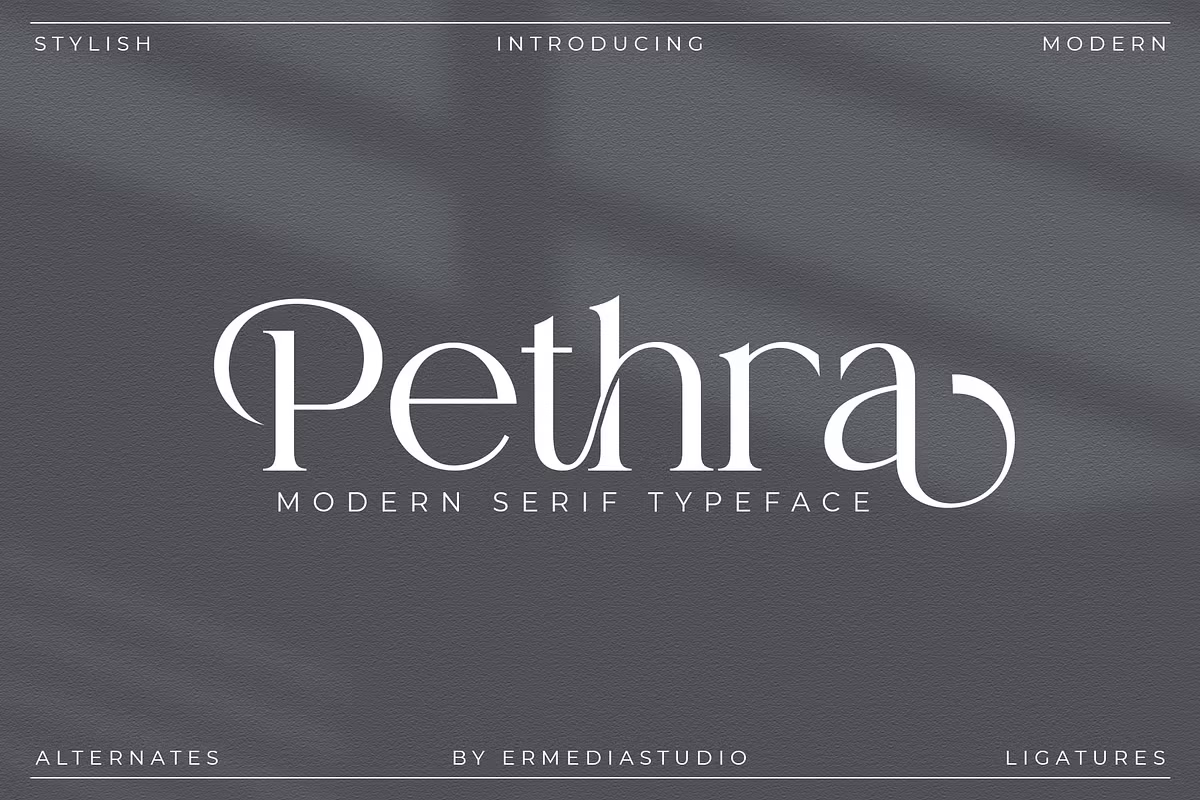
Pethra - Modern Serif Font Free Download
The Pethra - Modern Serif Font Free Download is a sleek and sophisticated typeface that blends classic serif elements with a contemporary twist. With its clean lines and balanced structure, this font is perfect for creating elegant branding, editorial designs, websites, and more. Its modern yet timeless appeal makes it versatile for a variety of projects, whether you're working on a high-end logo, a professional business presentation, or a stylish magazine layout. Please note, for commercial use, a license purchase is required. However, you can easily download the Pethra - Modern Serif Font Free Download for free for personal use and test its versatility. Whether you're designing for print or digital media, this font will add a refined, polished look to your work. Download the Pethra - Modern Serif Font Free Download today and elevate your typography with modern elegance.